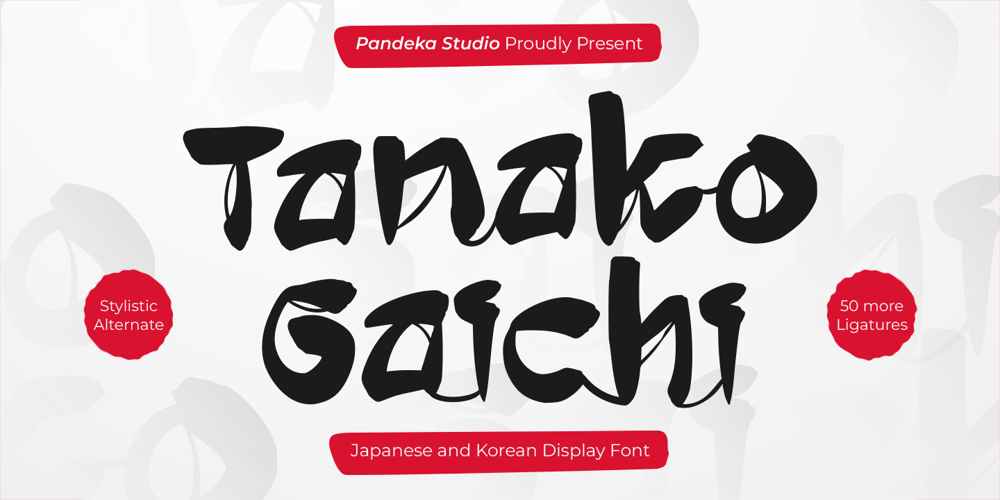
Tanako Gaichi
Tanako Gaichi font
Tanako Gaichi Font Family was designed by Sagara Nararya and published by Pandeka Studio. Tanako Gaichi contains 1 styles and family package options. Tanako Gaichi – Japanese and Korean Display FontWant to add a bold Japanese and Korean vibe to your designs? Tanako Gaichi is the perfect font to make your projects stand out! With its sleek and modern style, it’s ideal for branding, posters, social media, and any creative work related to Japanese restaurants, samurai themes, Japanese logos, Korean products, or cultural events. Plus, with 50+ ligatures, your text will always look unique and captivating!What’s Included: Main Files formats 1 Style: Regular Full Character Set: Uppercase, lowercase, numbers, symbols, and punctuation 50+ Ligatures and alternates Easy to Use: Works on both PC & Mac Compatible with Adobe Illustrator, Photoshop, Microsoft Word, Canva, and more PUA Encoded: Fully accessible without additional software Language Support: Danish, English, Estonian, Filipino, Finnish, French, Friulian, Galician, German, Gusii, Indonesian, Irish, Italian, Luxembourgish, Norwegian Bokmål, Norwegian Nynorsk, Nyankole, Oromo, Portuguese, Romansh, Rombo, Spanish, Swedish, Swiss-German, Uzbek (Latin)Japanese Typeface | Elegant Branding | Minimal Fonts | Japanese Style | Cultural Typography | Zen Aesthetic | Tanako Gaichi | Logo Design | Modern Typeface | Japanese VibesThank you and happy designing!Pandeka Studio